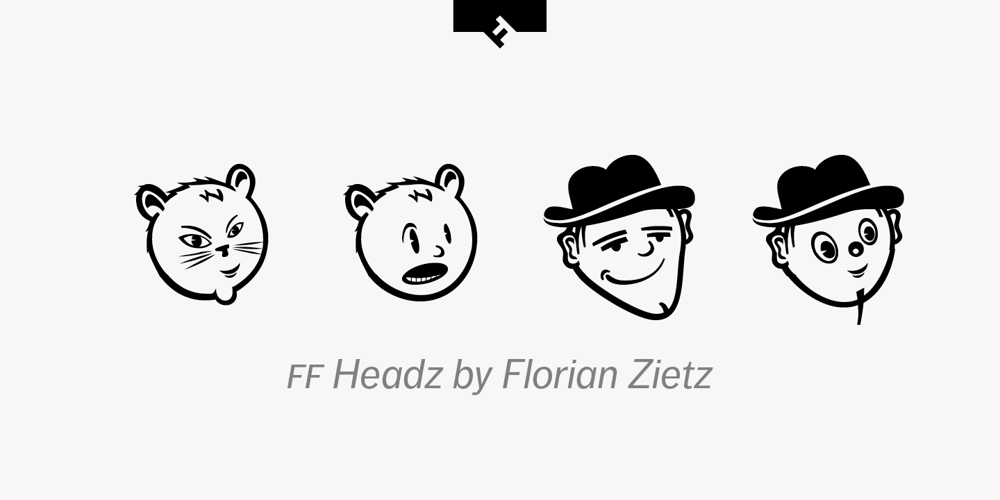
FF Headz
FF Headz font
FF Headz Font Family was designed by Florian Zietz and published by FontFont. FF Headz contains 1 styles and family package options. German type designer Florian Zietz created this symbol FontFont in 2005. It is a playful, interactive font, designed to invite experimentation. Using different combinations of letters from the four rows of the keyboard such as ‘0esx 0esc’, you can create ‘Headz’ with different top, eyes, mouth and chin. In 2006, FF Headz received the TDC2 award.